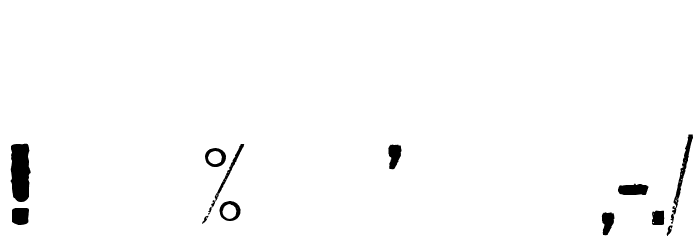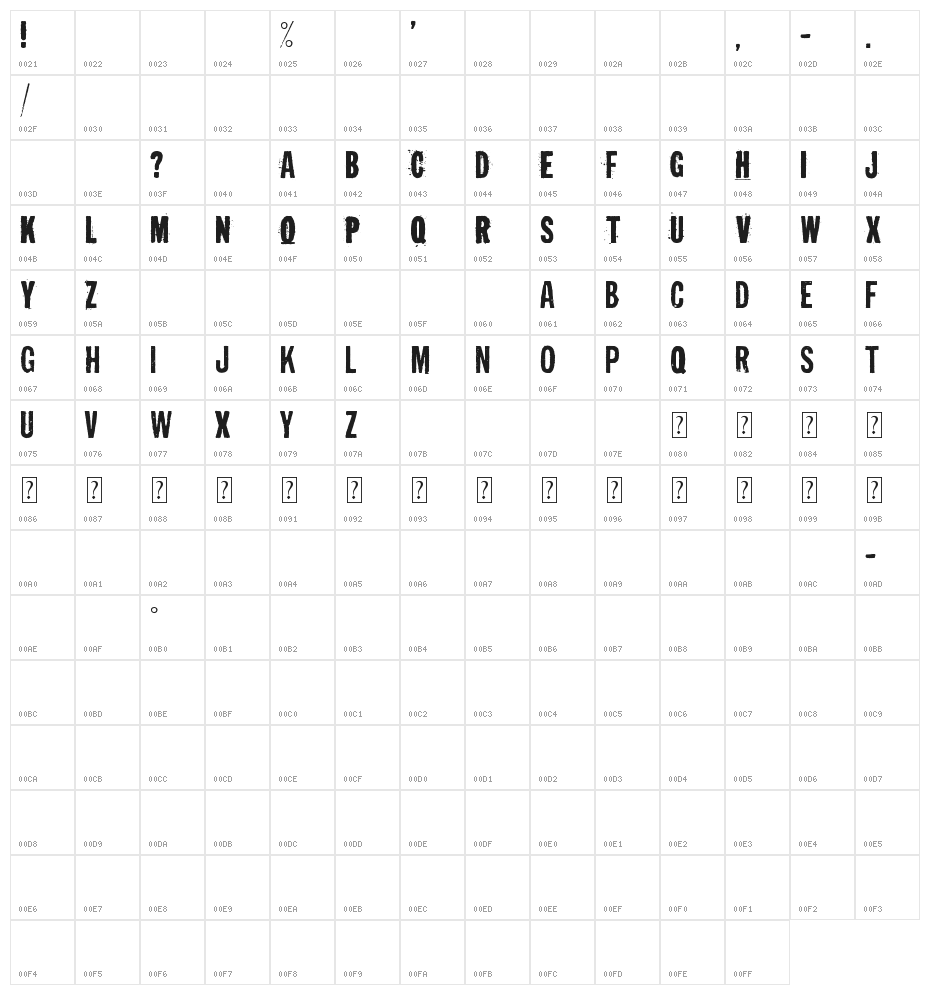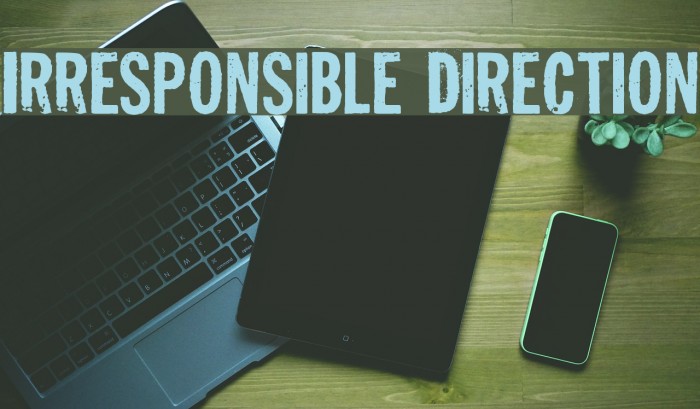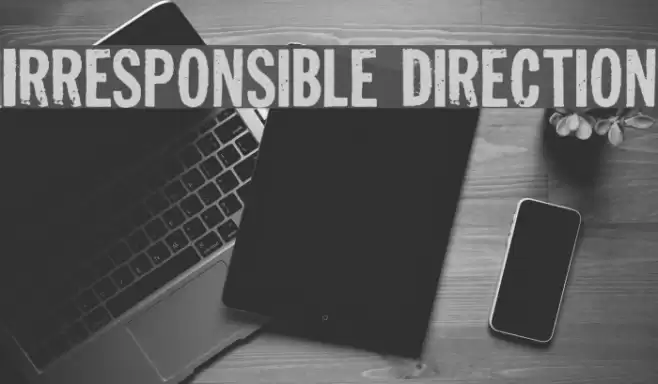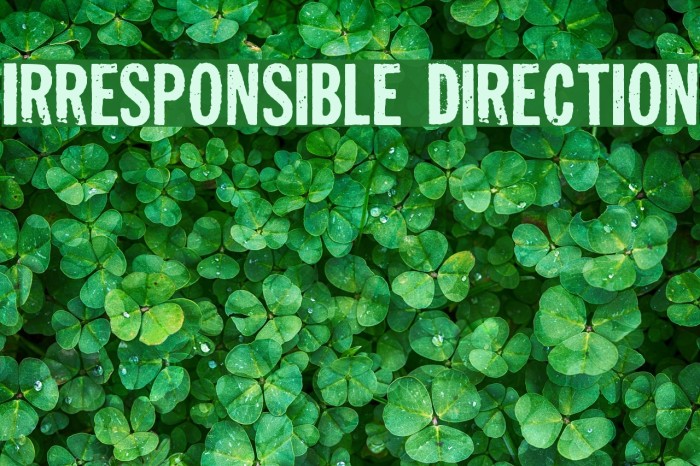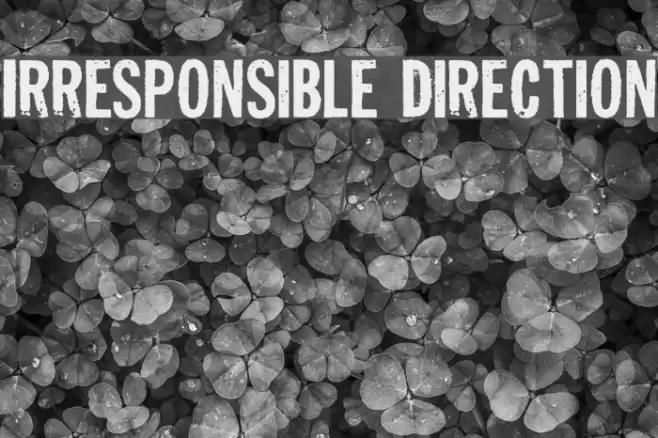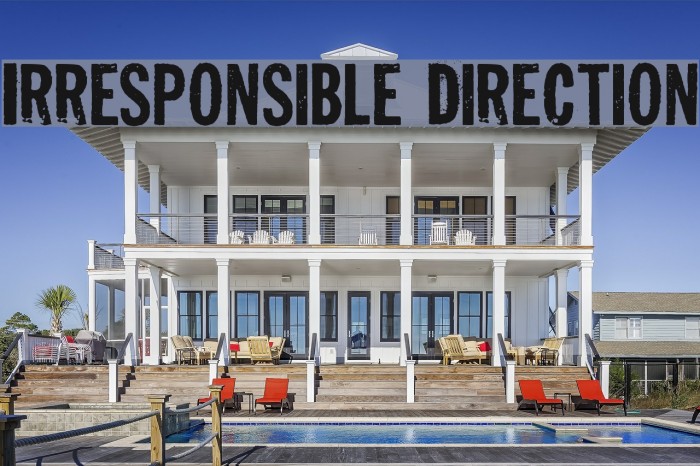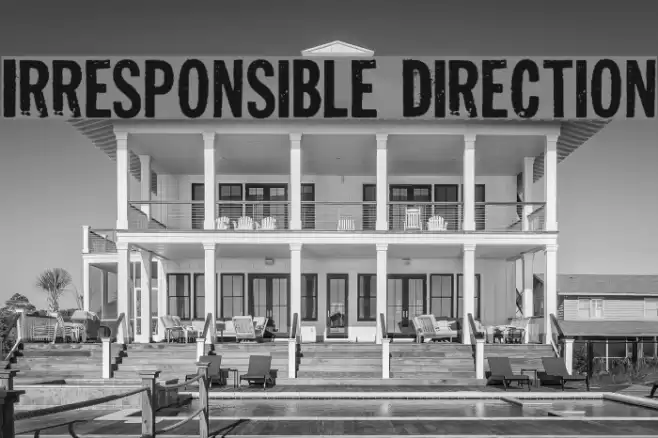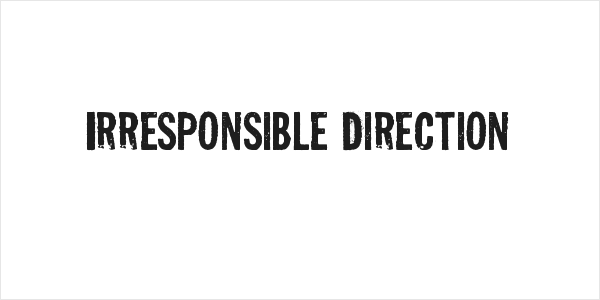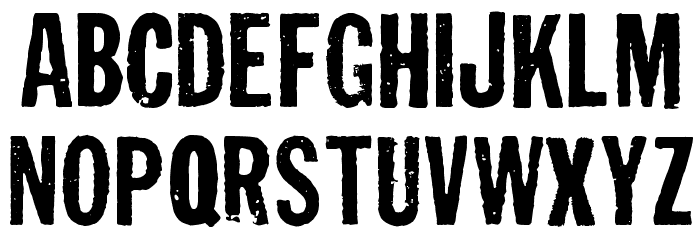
Irresponsible Direction Font
Irresponsible Direction Description
This font features a bold, distressed style with a rugged texture that gives it a vintage, worn-out appearance. The uppercase letters are prominent and impactful, making it ideal for attention-grabbing designs. The characters have a slightly uneven edge, adding to the rustic charm. The font's gritty texture suggests a sense of history and character, perfect for projects that require a touch of nostalgia or a handcrafted feel. The spacing between characters is relatively tight, enhancing its bold presence. This font is versatile for various creative applications, from posters to branding materials.
| Proposed Projects | Ideal for posters, branding, packaging, and vintage-themed designs. |